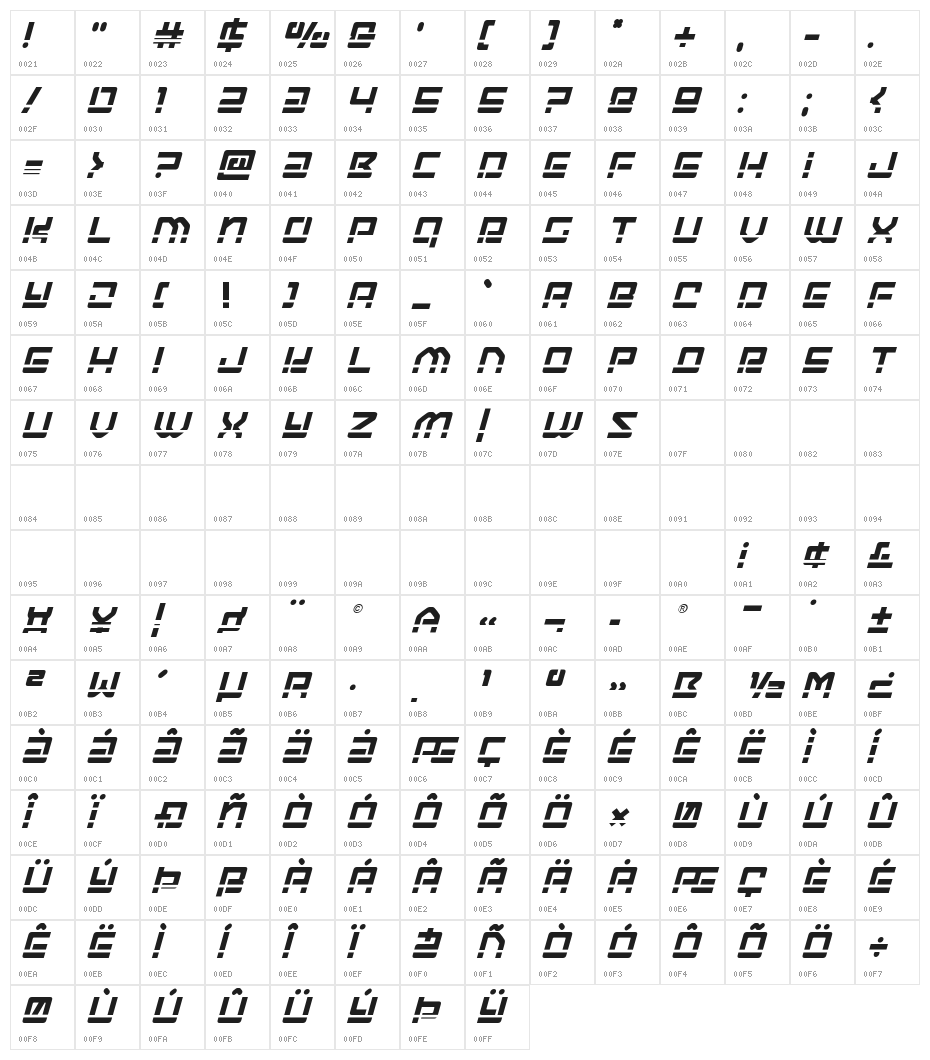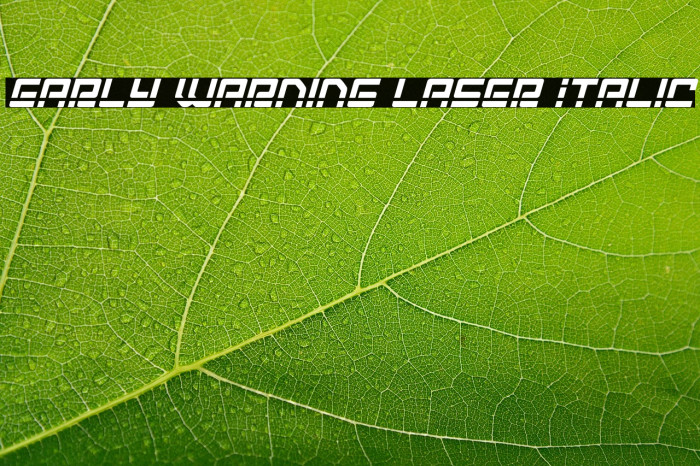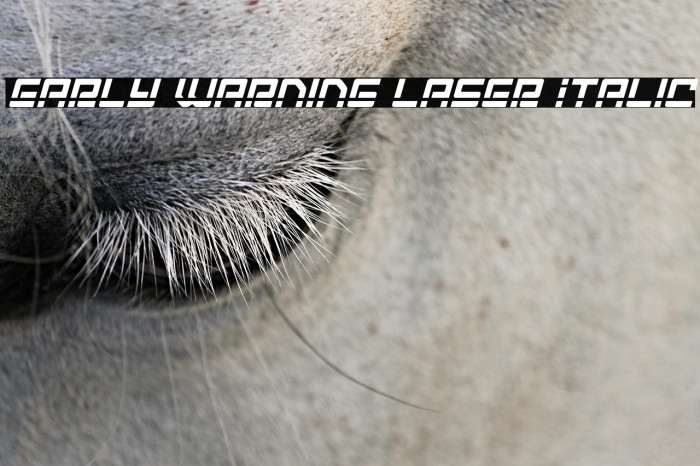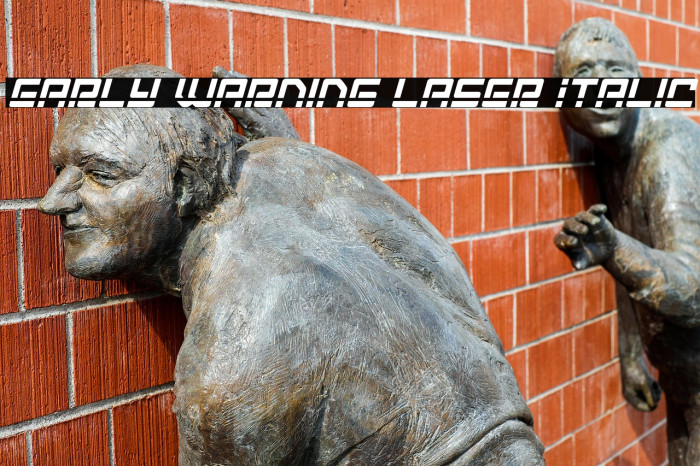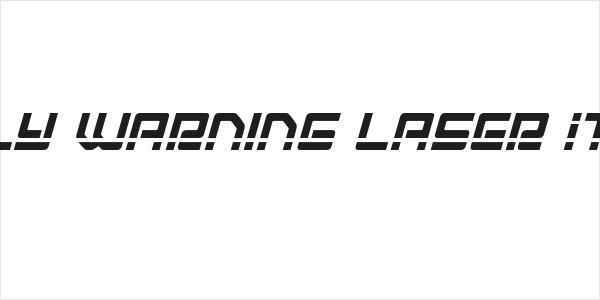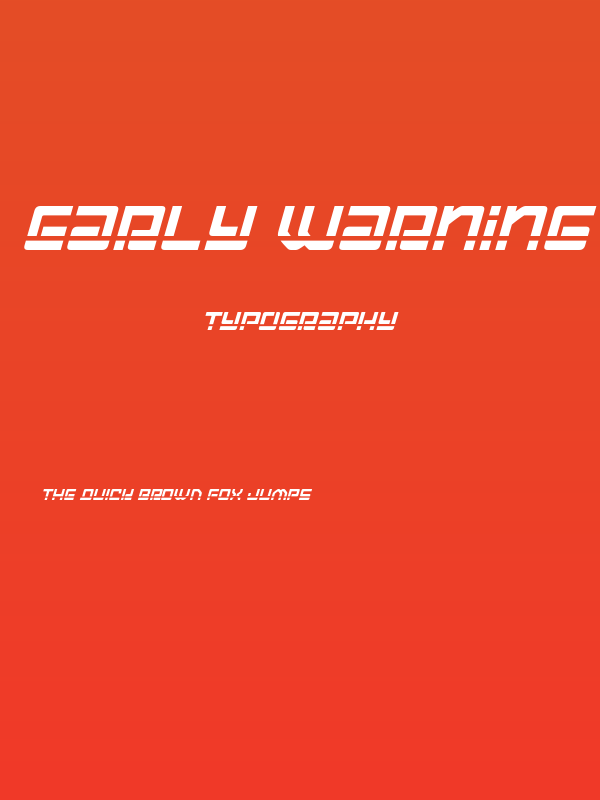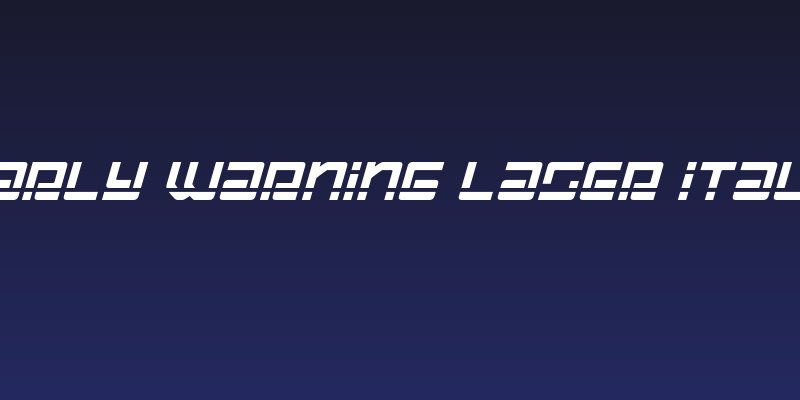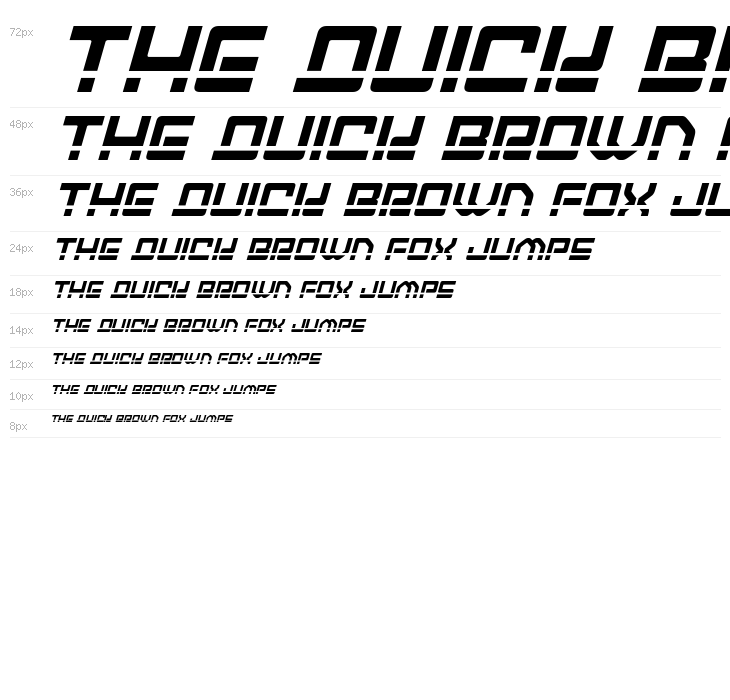
Early Warning Laser Italic Font
Early Warning Laser Italic Description
This font features a futuristic and dynamic design with a strong emphasis on angular lines and geometric shapes. The characters are italicized, giving them a sense of motion and speed. The strokes are bold and consistent, with a medium contrast that enhances readability while maintaining a sleek appearance. The spacing between characters is normal, allowing for clear legibility even at smaller sizes. This style is ideal for projects that require a modern and tech-savvy aesthetic, such as technology branding, sci-fi themed designs, or innovative product packaging.
| Proposed Projects | Ideal for technology branding, sci-fi designs, and innovative product packaging. |